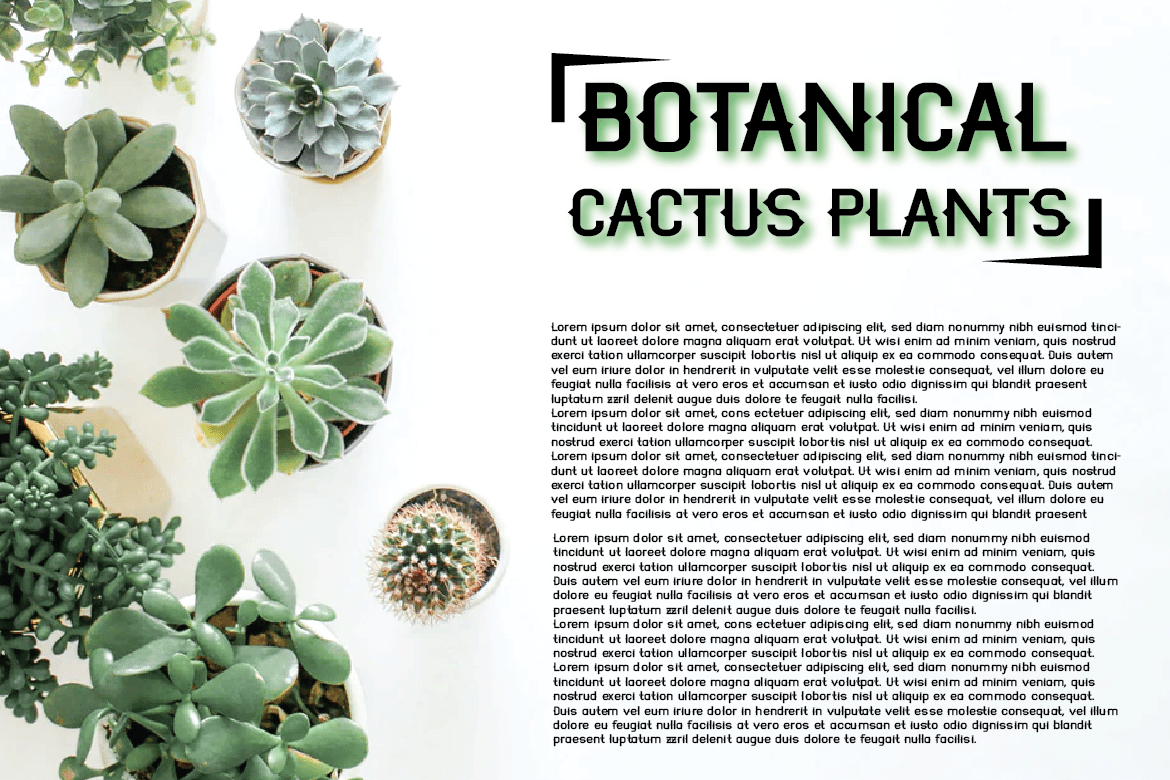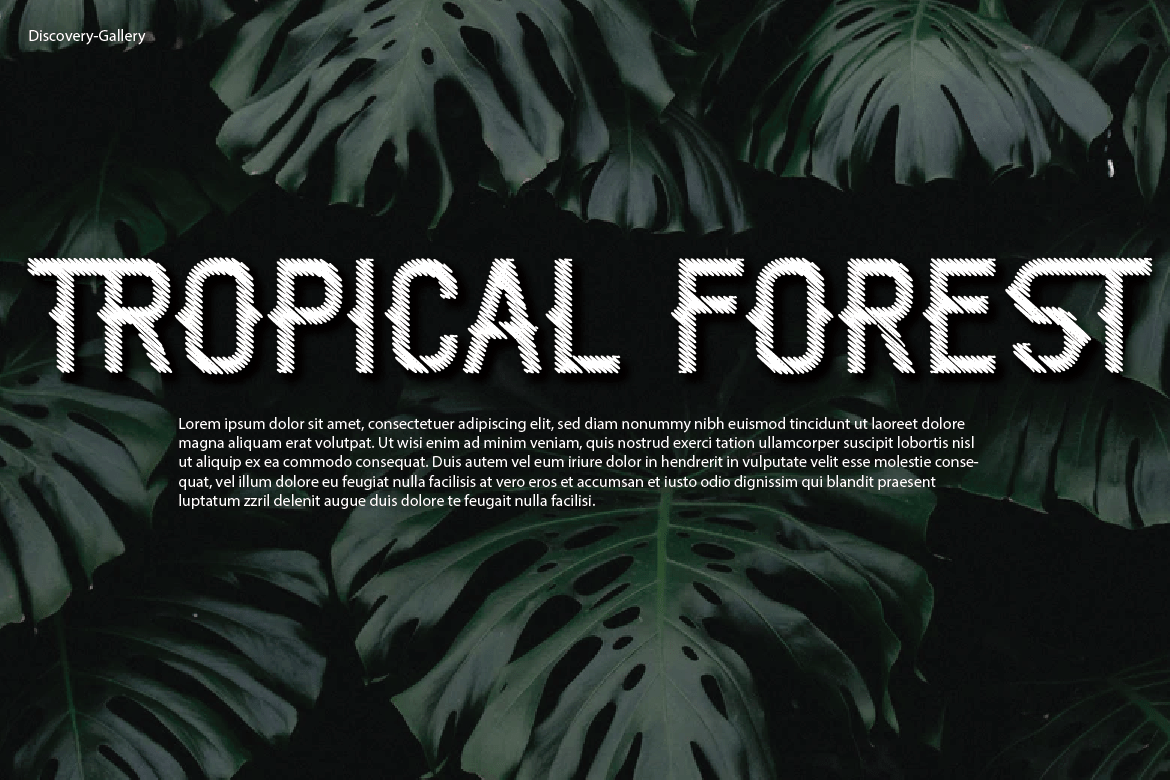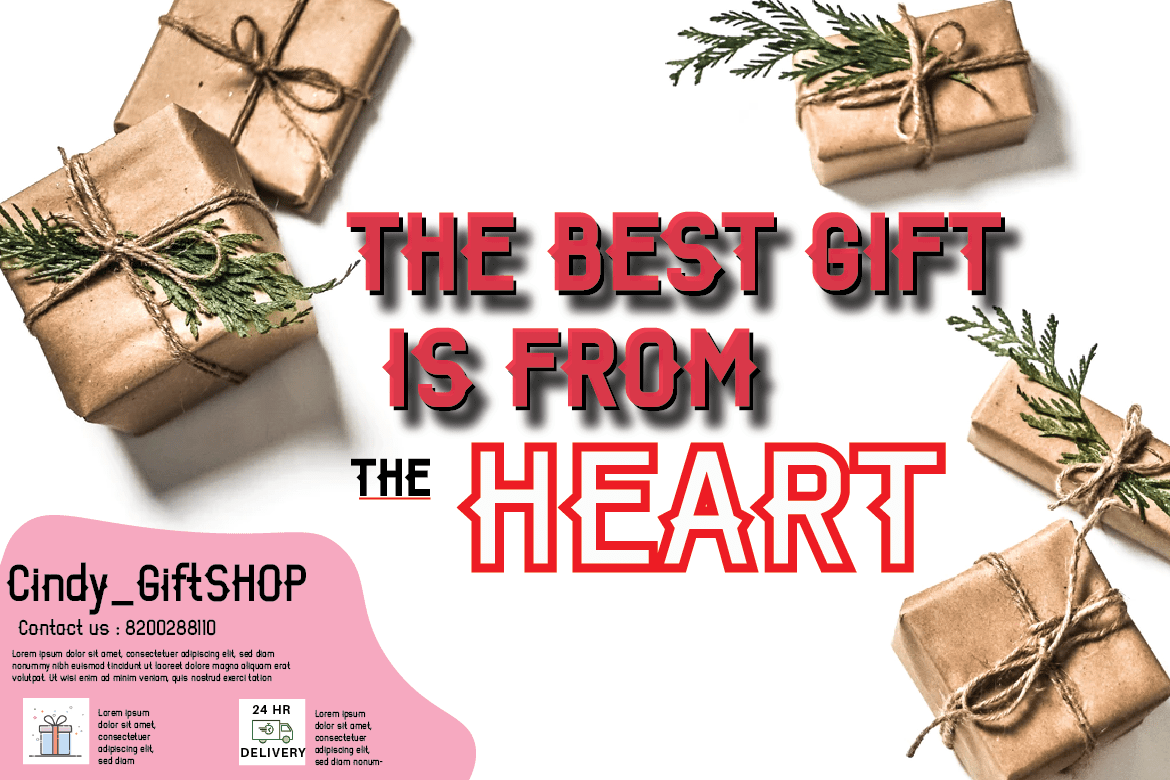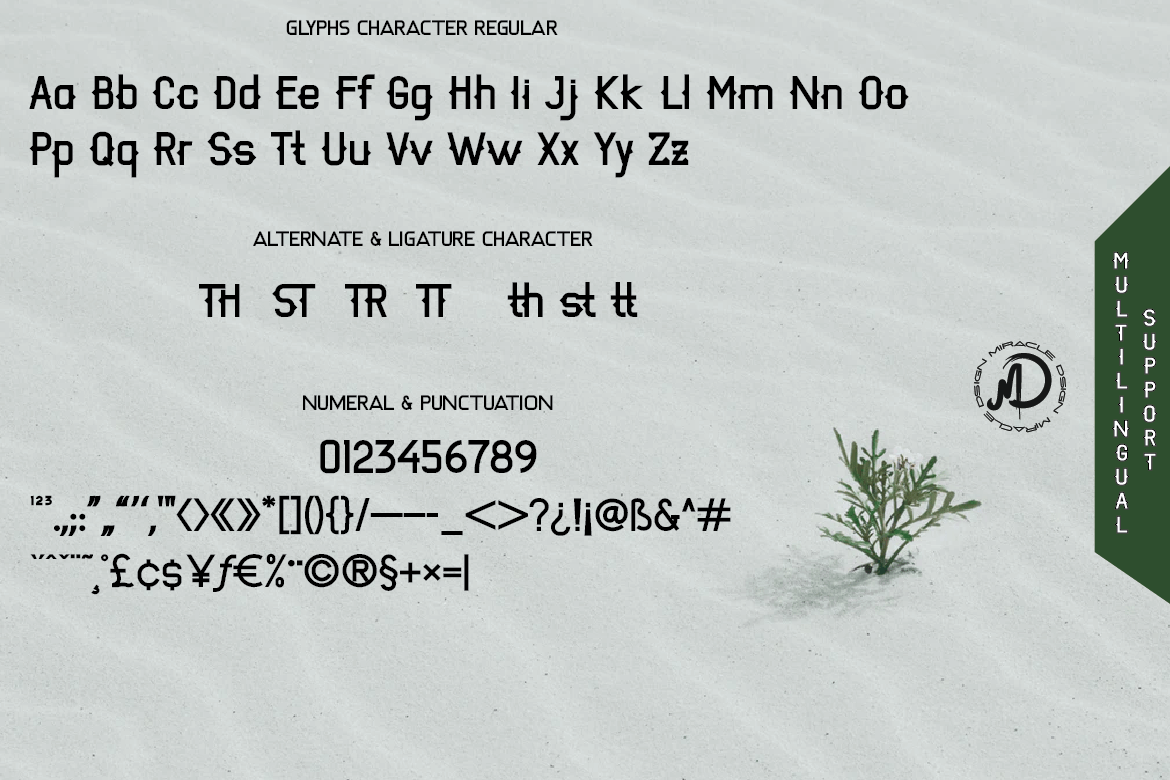
ROSE THORN Font
ROSE THORN Display Font
This typeface carries the theme of a strong, unique, cute, elegant, and formal character with a different touch, giving a new impression. beautiful, harmonious, relaxed but still formal.
This font is rich in uniqueness in the various characters in each letter, especially capital letters. You can change the dial in each capital letter to create a new and charming look in writing your name or trademark or something else.
This font is perfect for strong text with looks for a wide variety of branding, advertisements, posters, banners, packaging, headlines, magazines, websites, logo designs, and more.